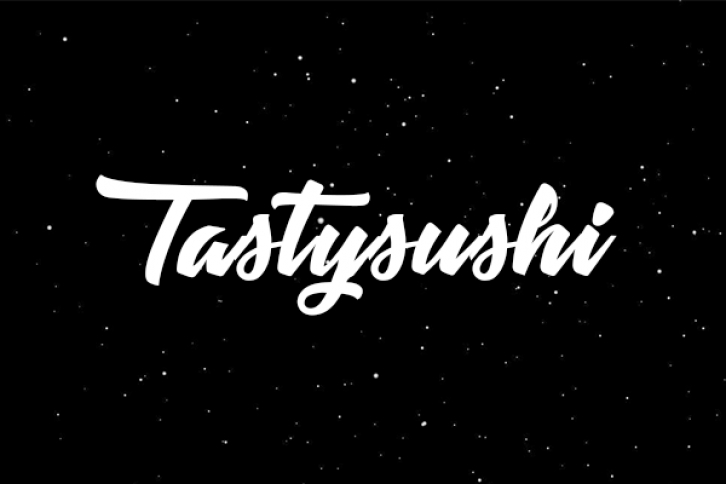
Tastysushi is is the best choice for creating eye catching logos, branding and quotes. Every letter has a unique and beautiful touch, which will make your design come alive!